How to set a specific iteration of a font character in InDesign
I'm using the Cy font in InDesign for a brochure. The font has different iterations for some of the letters. i.e. a sharp squared-off edge and a soft curved version. However, if I favor one over the other, where do I go to set my preferences for that font if I want the soft vs. square, or vice versa? Currently, it cycles through the different versions of each character when placing large blocks of text. I thought it might be their priority in the glyph panel, but that doesn't seem to be it. Does anyone know where I can set this?
Example:
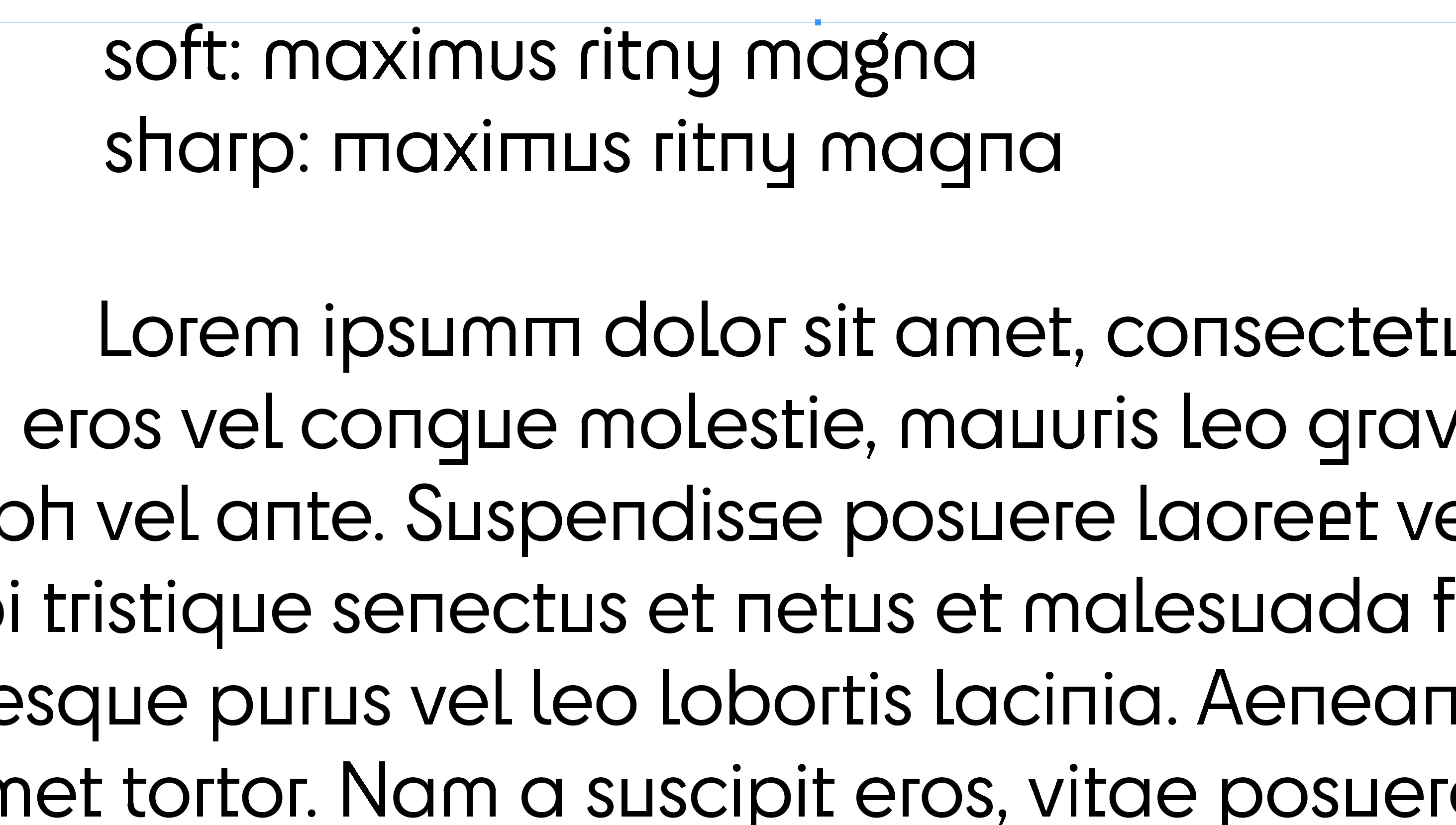
You can also control the display with the OpenType features: specifically Contextual Alternates and the Stylistic Sets. I am showing them via the OpenType button at the bottom of the text frame (the blue highlights the changed characters) but you can control this via the Paragraph style > OpenType as well.
You can also make your own stylistic sets.
You can also control the display with the OpenType features: specifically Contextual Alternates and the Stylistic Sets. I am showing them via the OpenType button at the bottom of the text frame (the blue highlights the changed characters) but you can control this via the Paragraph style > OpenType as well.
You can also make your own stylistic sets.
You can enter specific glyphs through the Glyphs panel. This is most easily done using the Alternates for Selection option in the Show drop down menu.
The alternates also appear under a character when one is selected.
You can also select a style from the Opentype submenu in the Character panel or hte Opentype panel in the Character Style or Paragraph Style dialogue.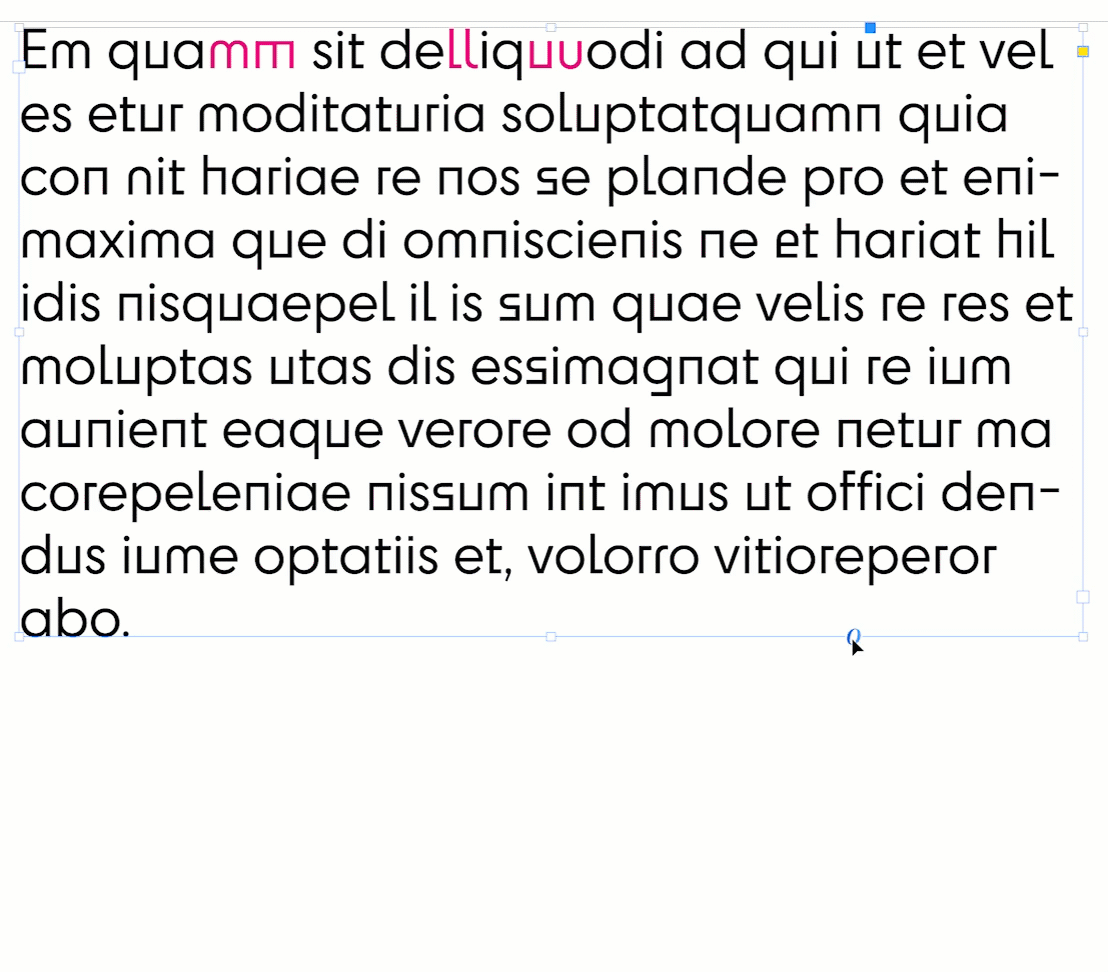